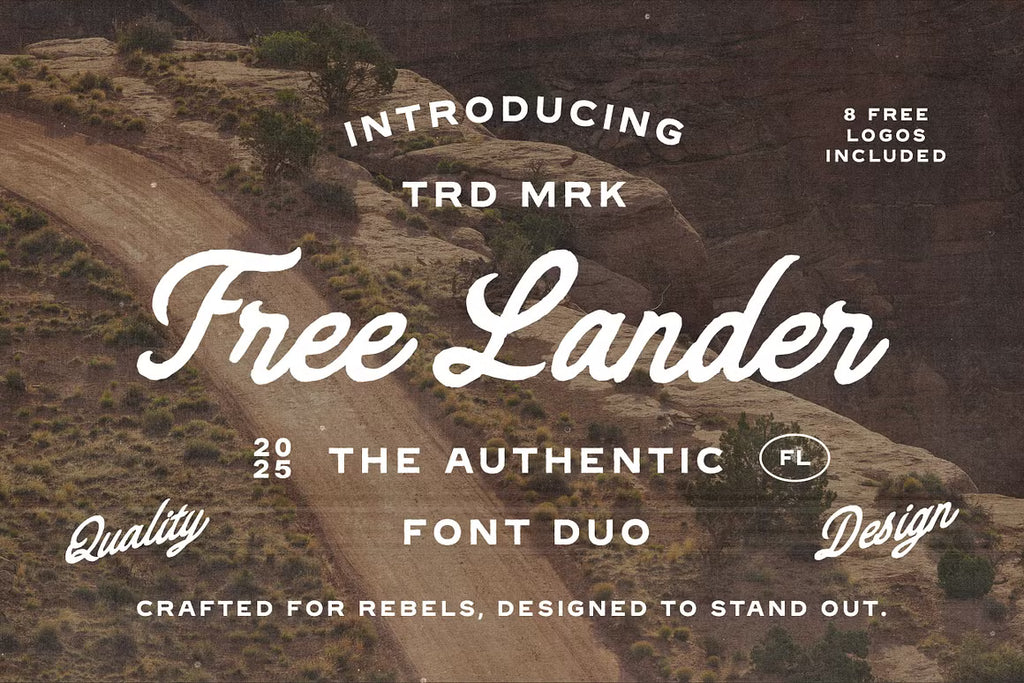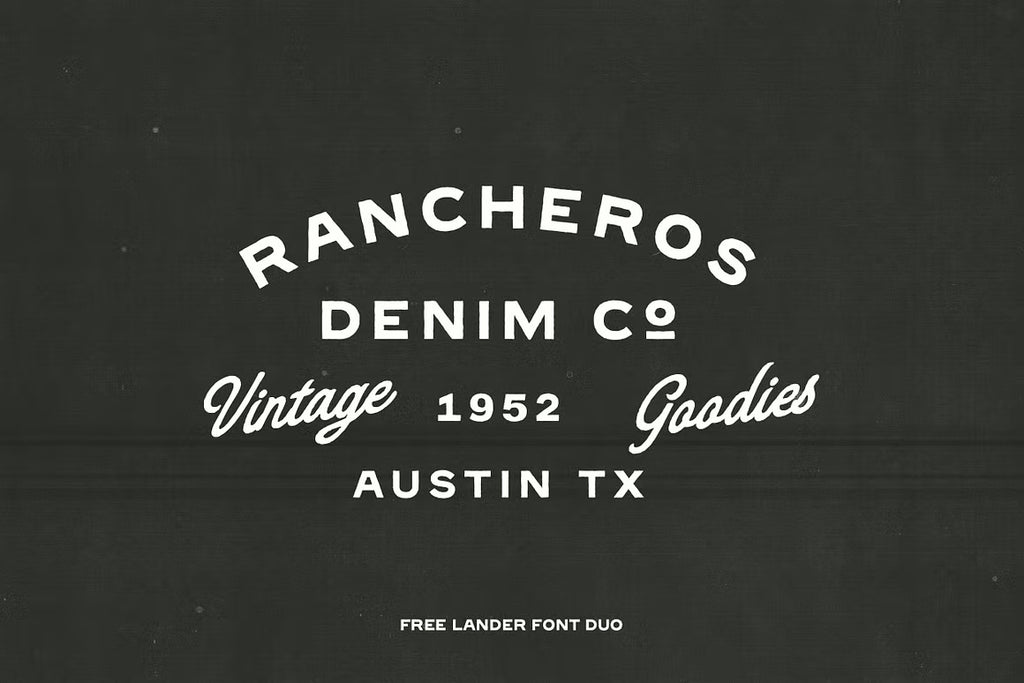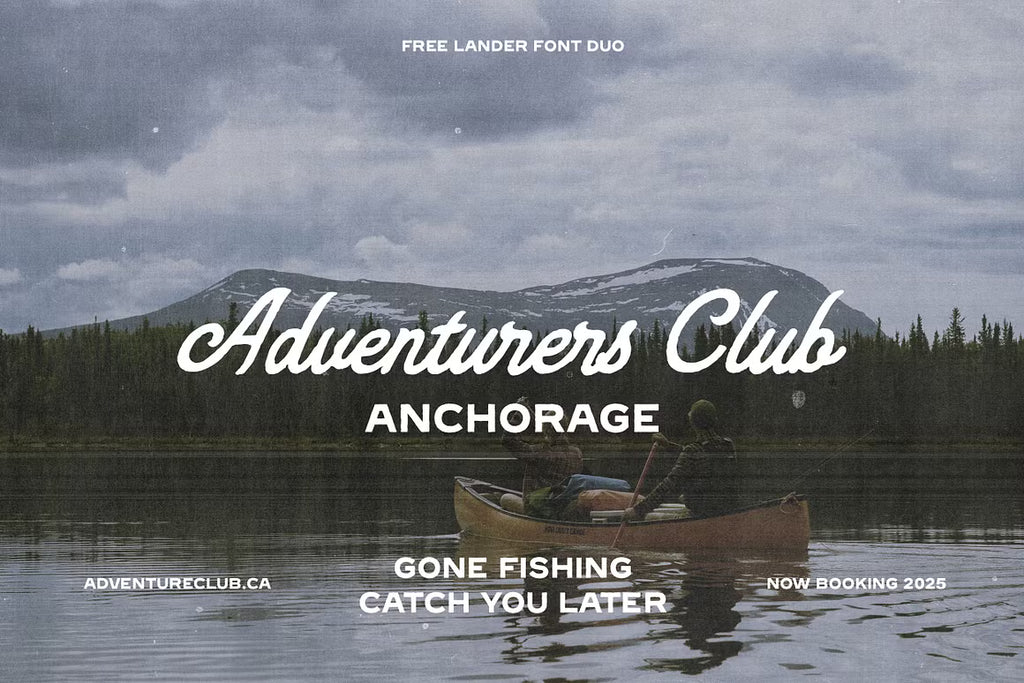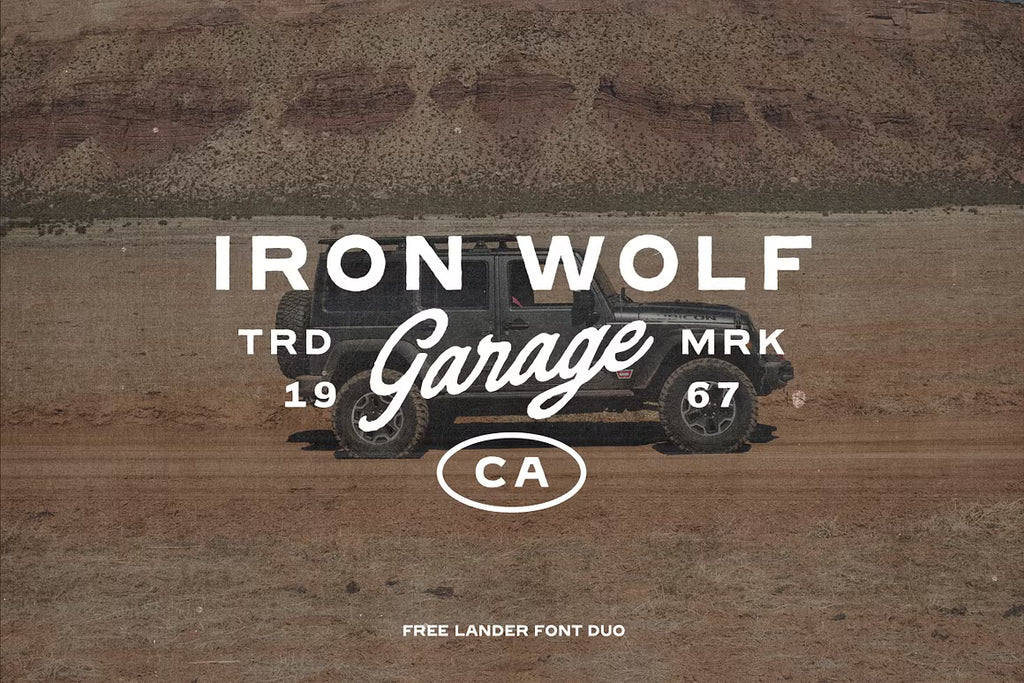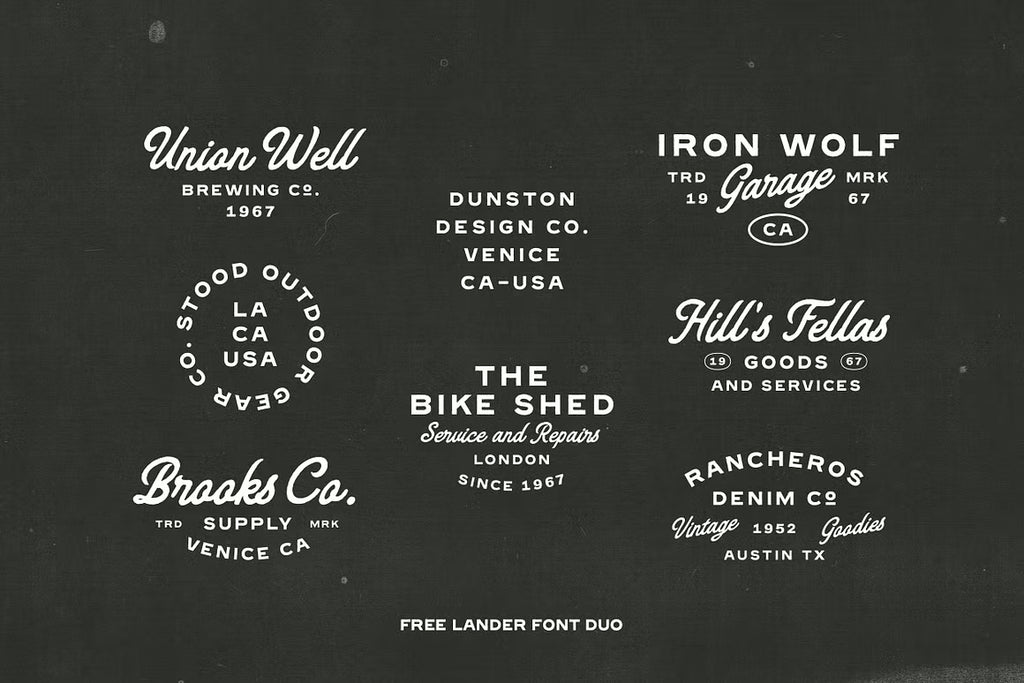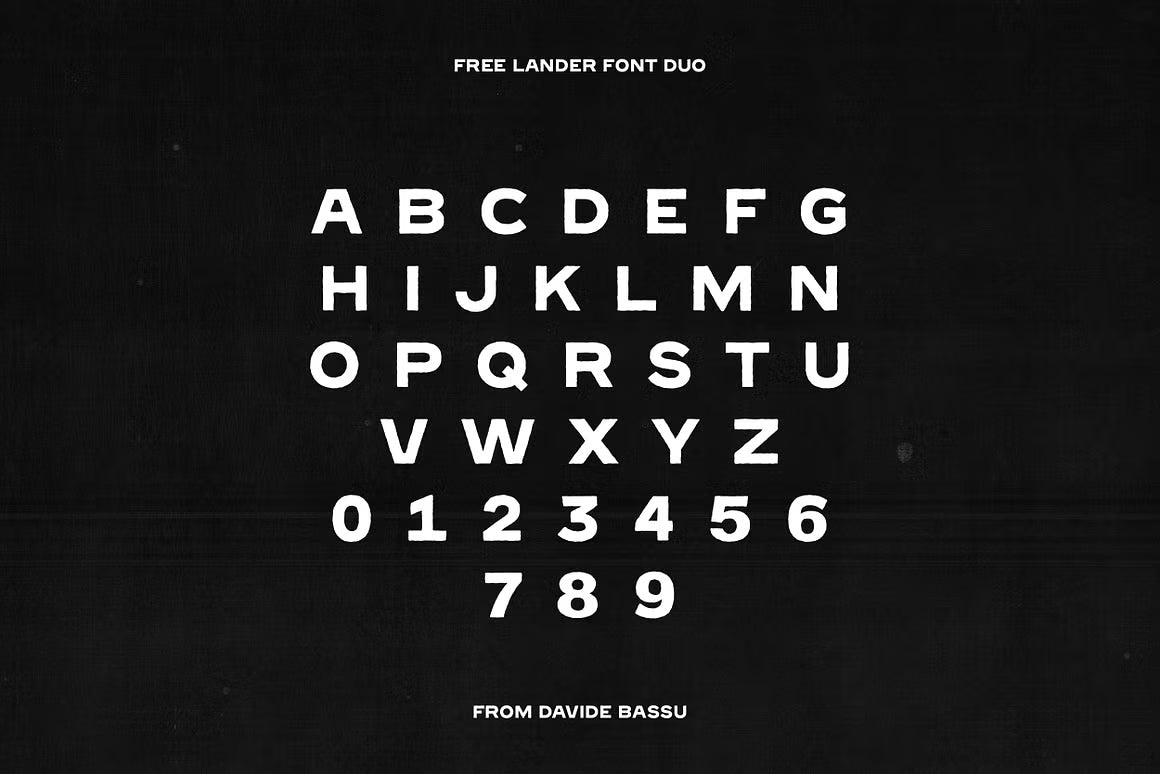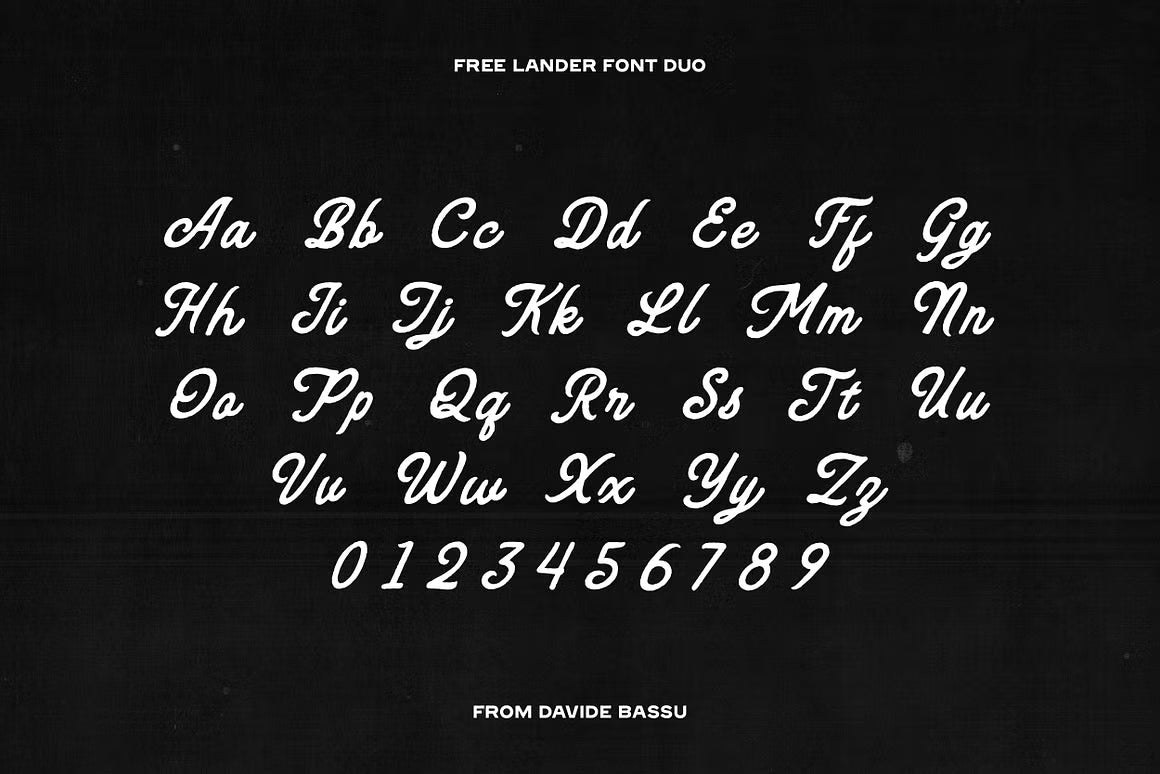
Fl Sans
Fl Script
Free Lander Font Duo + Extra is a bold, adventurous pairing that combines a raw handcrafted script with a rugged handmade sans. Designed for those who want their work to feel authentic and full of grit, this duo captures the spirit of exploration, freedom, and vintage rebellion.
From logos and apparel graphics to packaging and posters, Free Lander brings movement, strength, and personality to your designs. The flowing script adds attitude while the solid sans provides balance and impact. As a bonus, you also get 8 free logo templates to jumpstart your projects.
A powerful, character-rich duo for creators who value soul and edge in their typography.
Free Lander - Font Duo + Extra